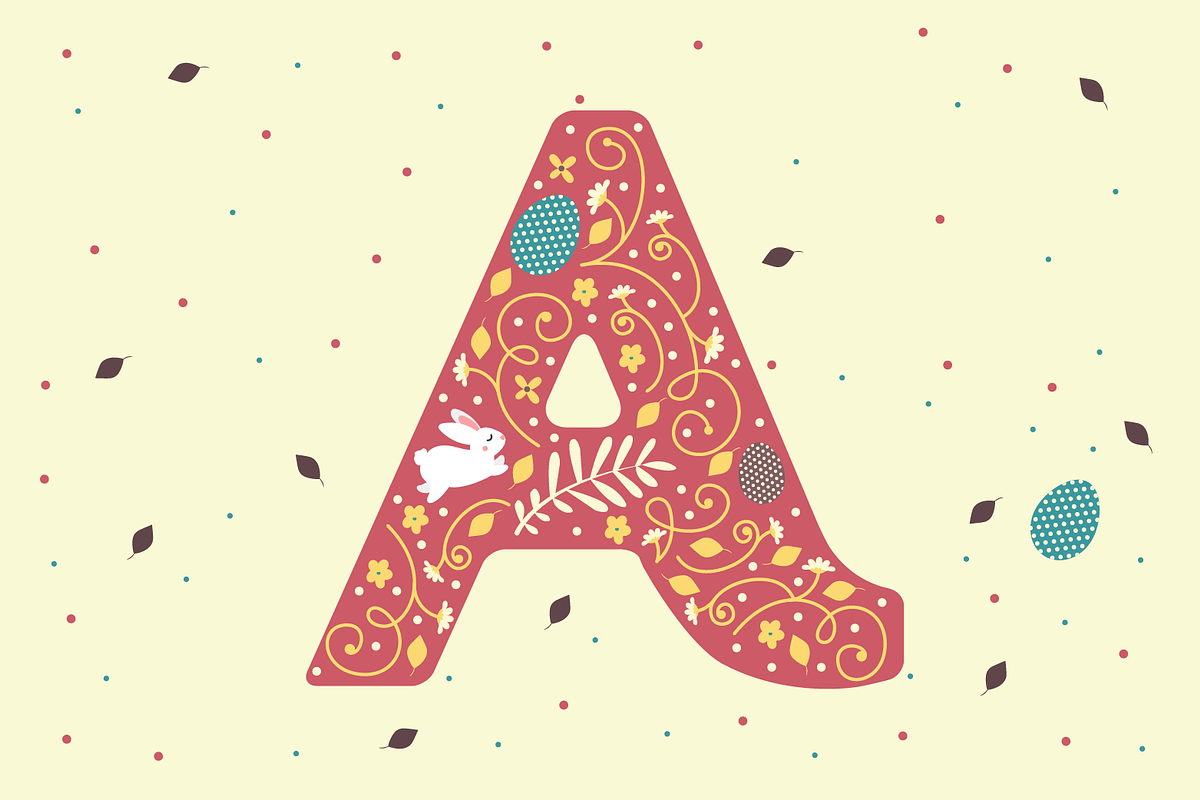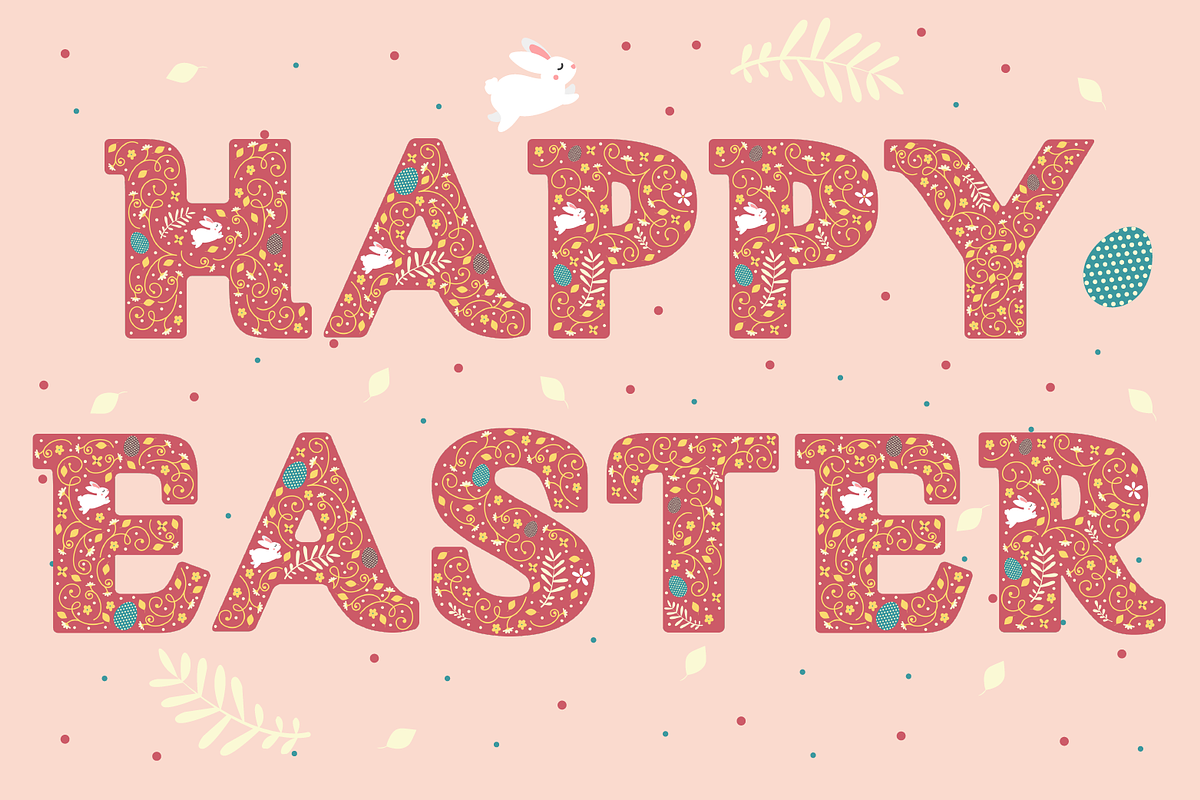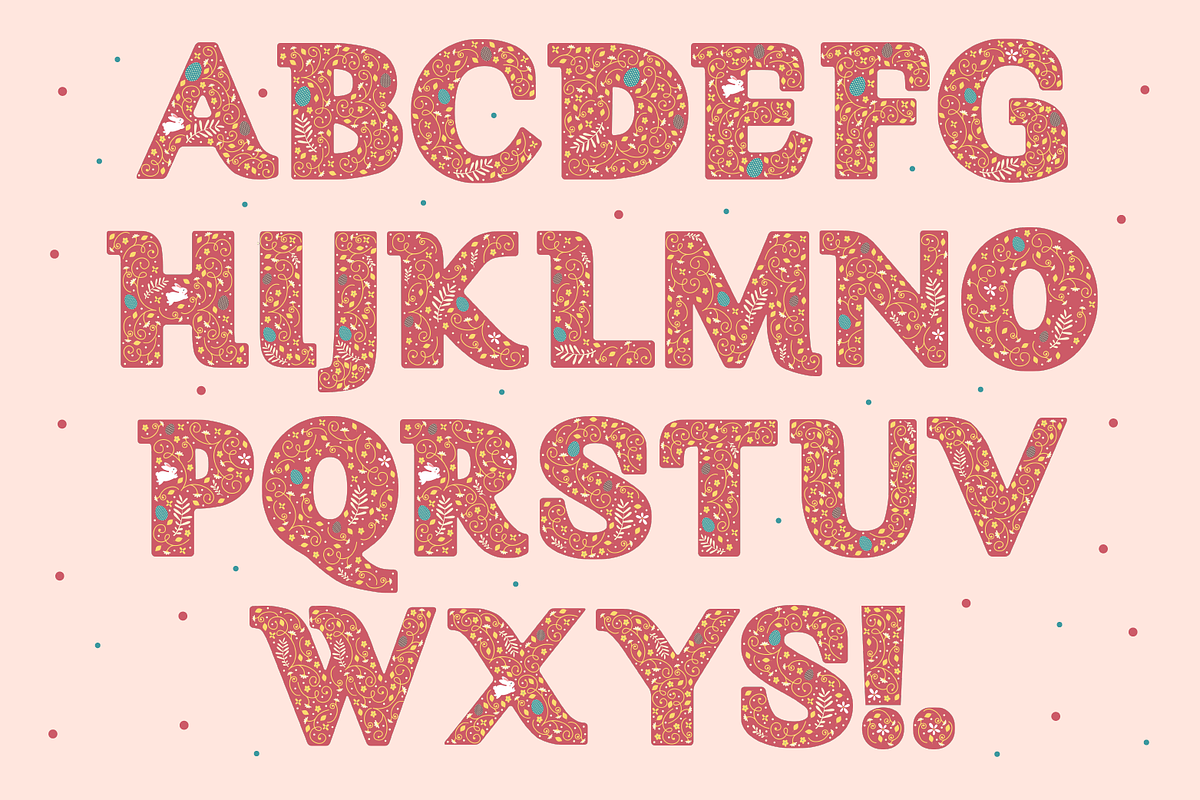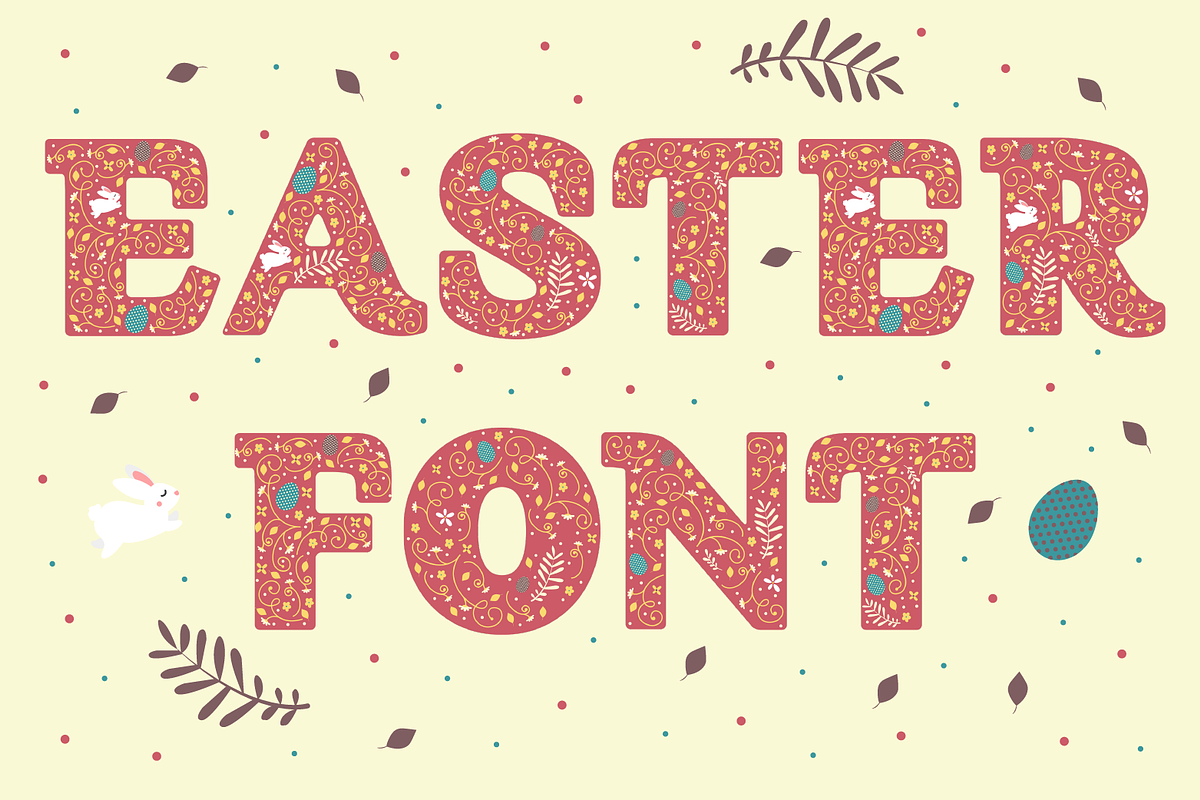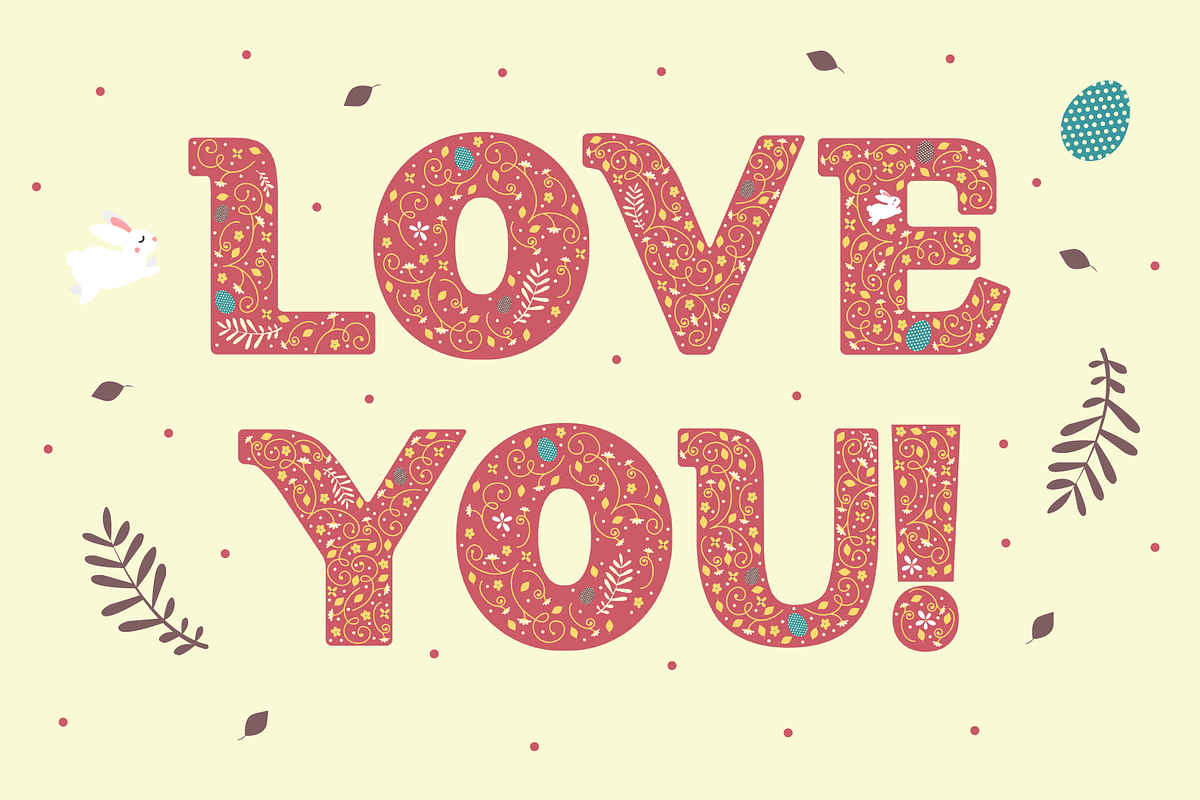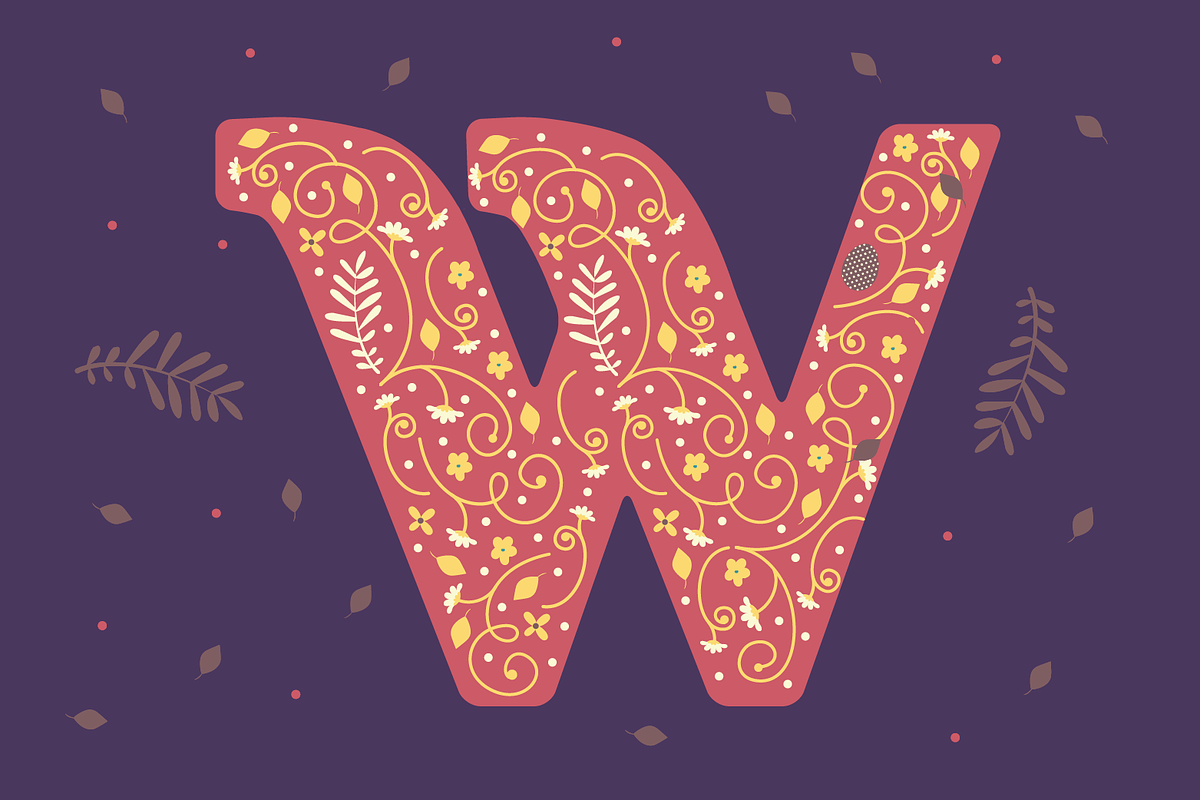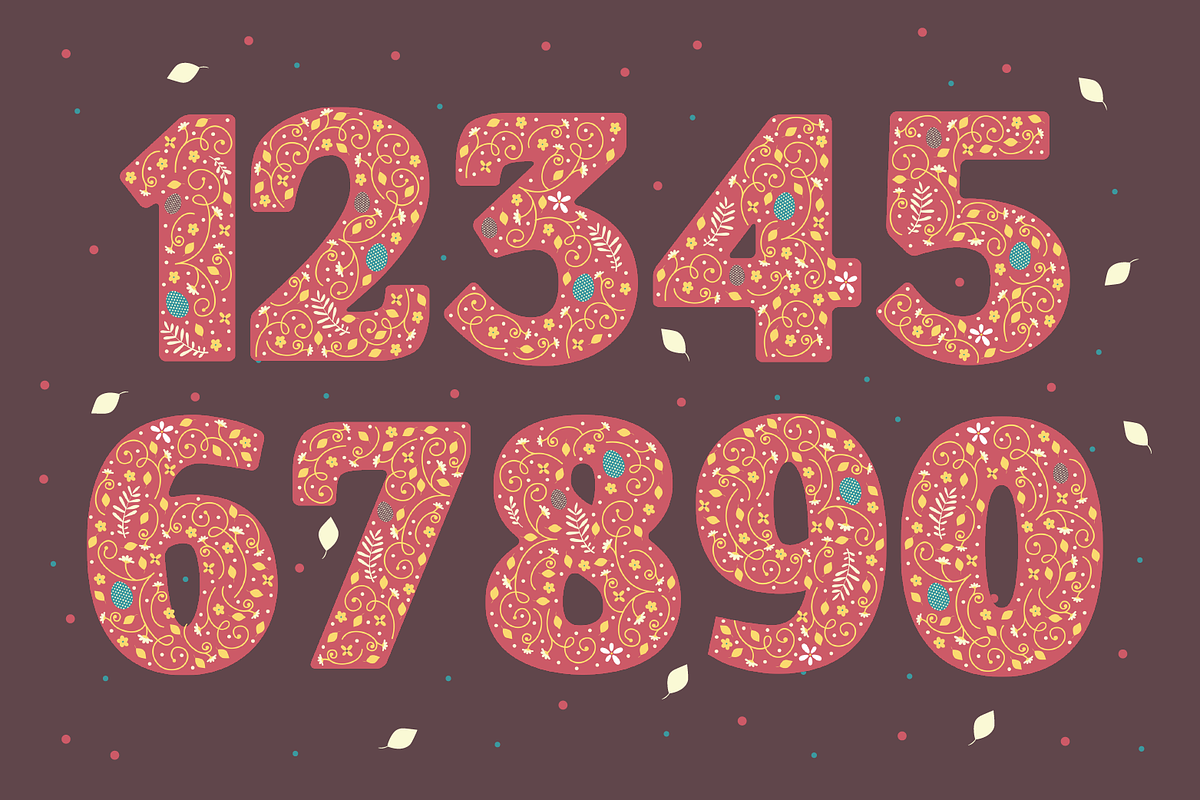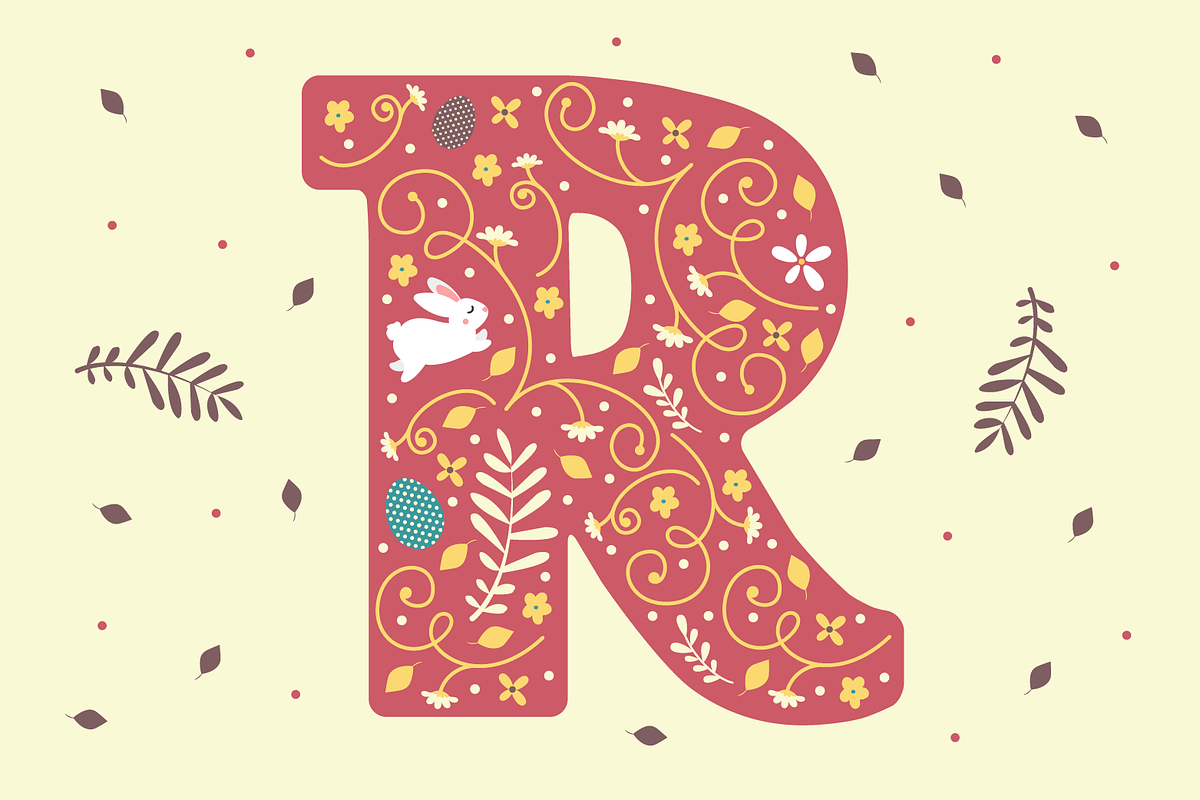
Easter Font
Easter Color Font SVG
Beautiful typography with Easter decoration, to make your designs more festive!
Easter Font by yaisalinas fits naturally into Branding, posters, packaging, typography.